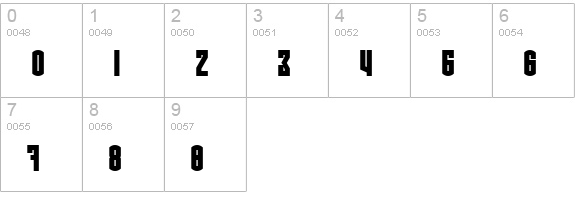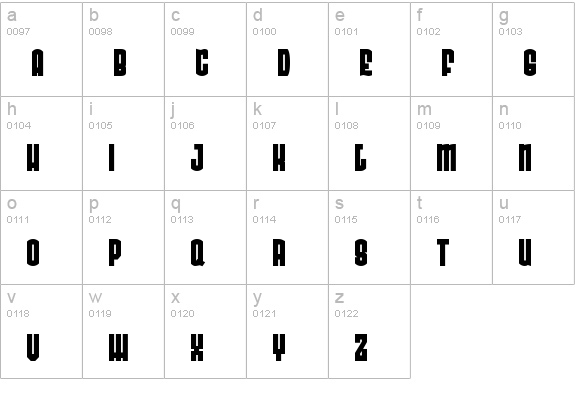
Radonator Very Heavy Normal Font Details
Radonator Very Heavy Normal is a heavy, high-impact variant in the Radonator typeface family \xE2\x80\x94 well suited to high-impact headlines, posters, and display advertising.
The Radonator Very Heavy Normal font is a bold and powerful typeface that is sure to make a statement. With its strong, thick lines and robust appearance, this font is perfect for creating eye-catching headlines, logos, and designs. What makes Radonator even more appealing is that it is available for free! That's right, you can easily download this impressive font at FontsMarket.com without spending a dime. Whether you're a professional designer or a casual user looking to add some flair to your projects, Radonator Very Heavy Normal is a fantastic choice. Its versatility allows it to be used in a variety of design contexts, from posters and banners to websites and social media graphics. The boldness of Radonator instantly grabs attention and conveys a sense of strength and confidence. So why wait? Go ahead and grab this amazing font for free at FontsMarket.com and start creating stunning designs that will leave a lasting impression. Don't miss out on the opportunity to enhance your projects with the Radonator Very Heavy Normal font.